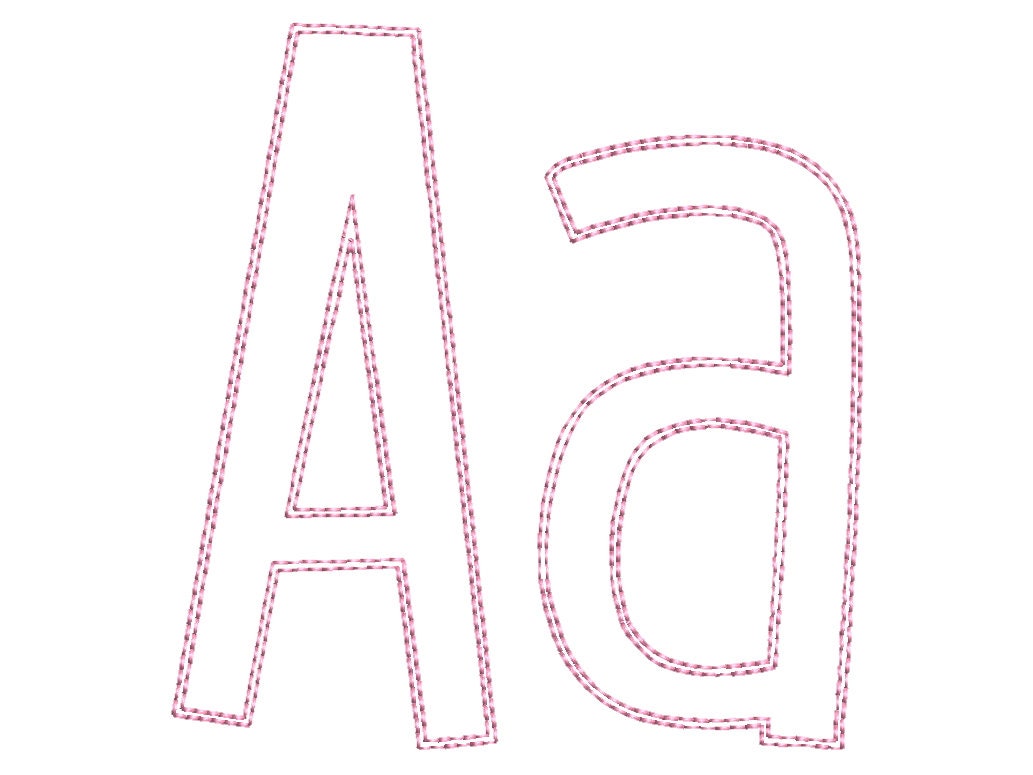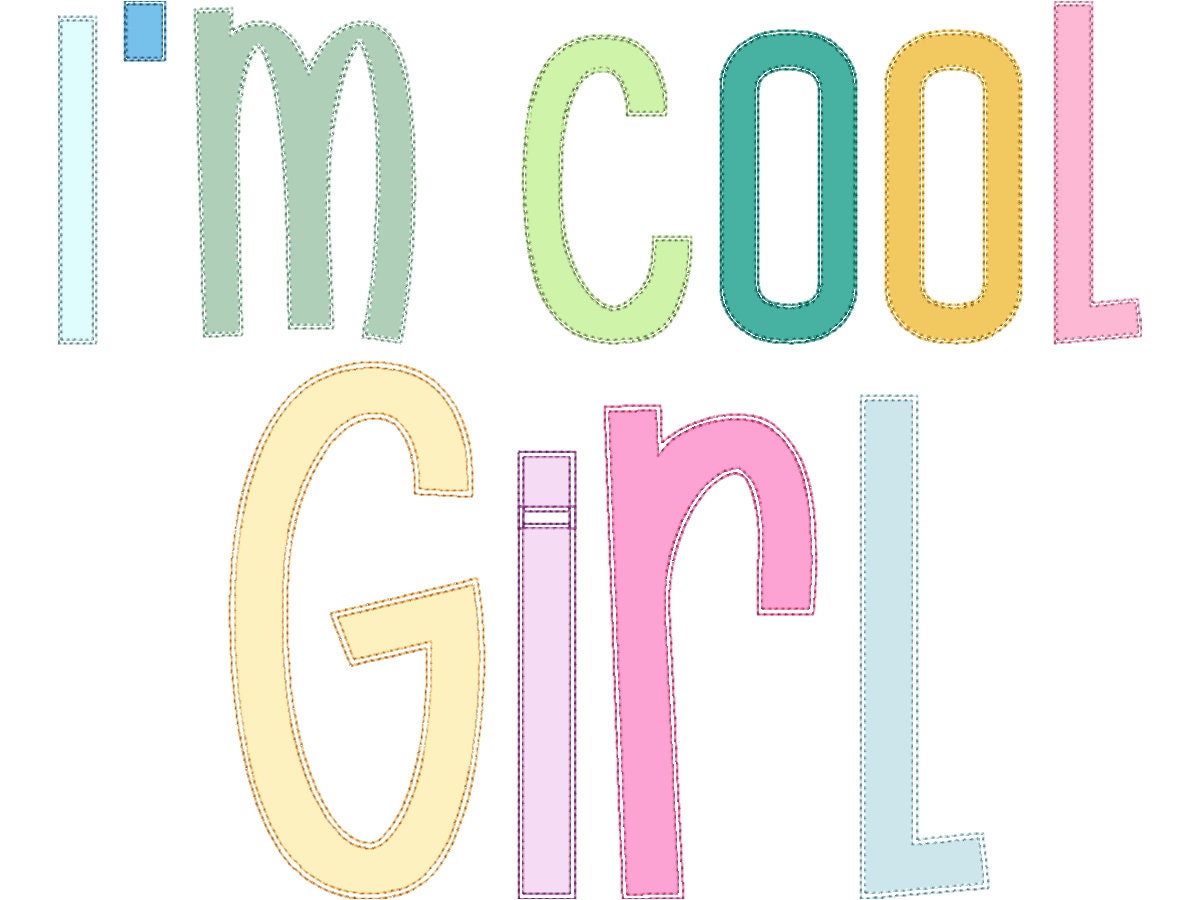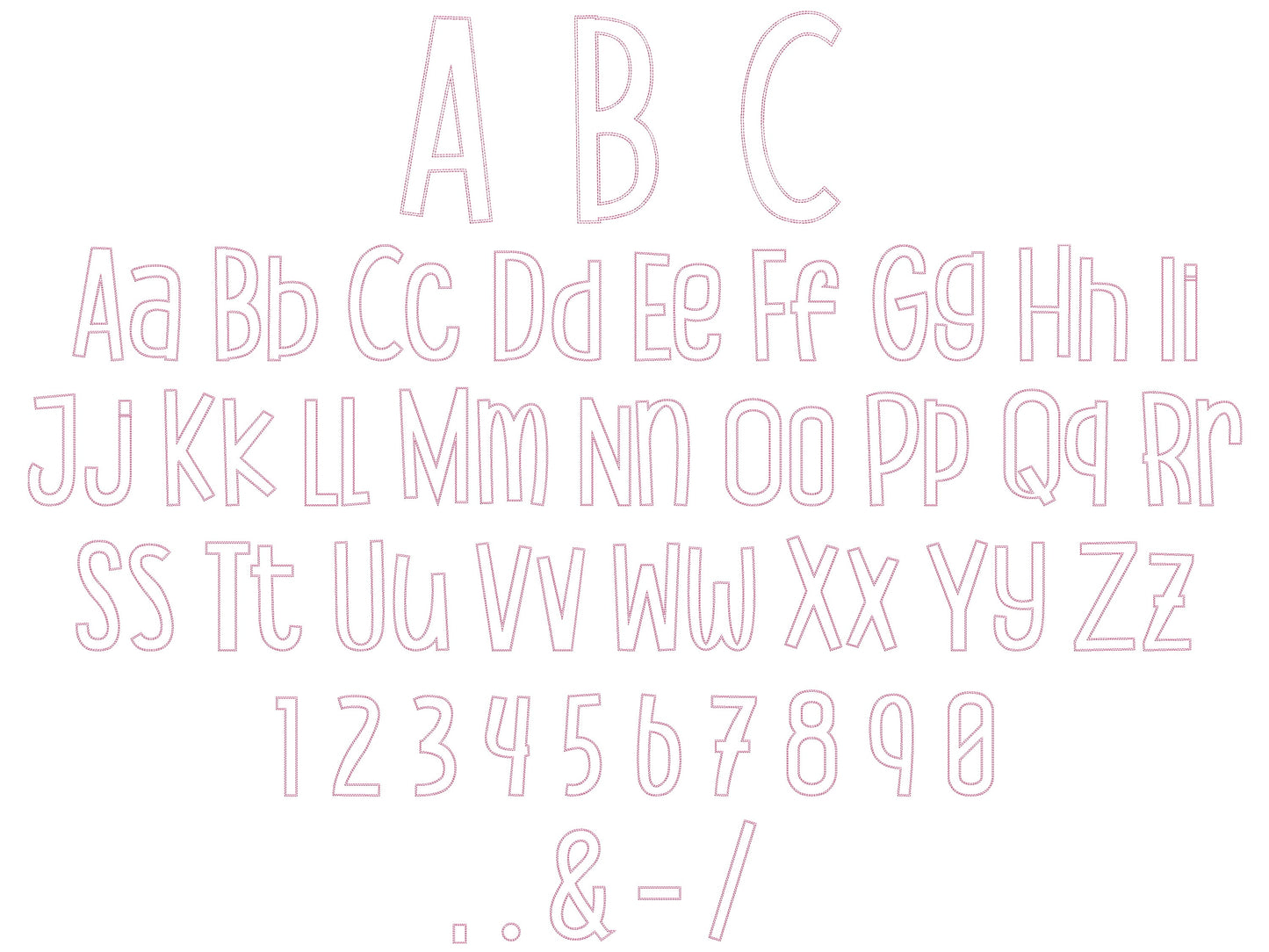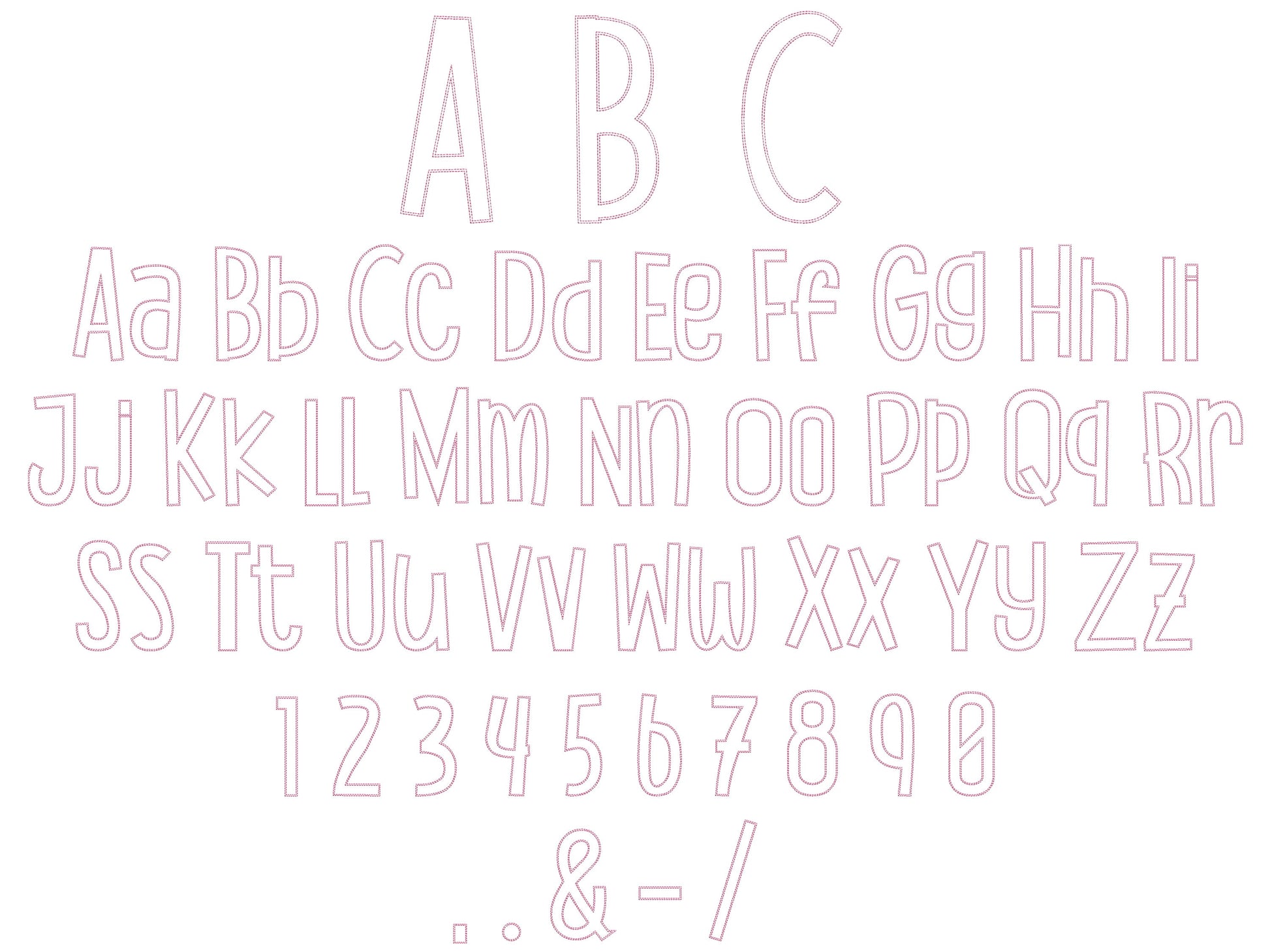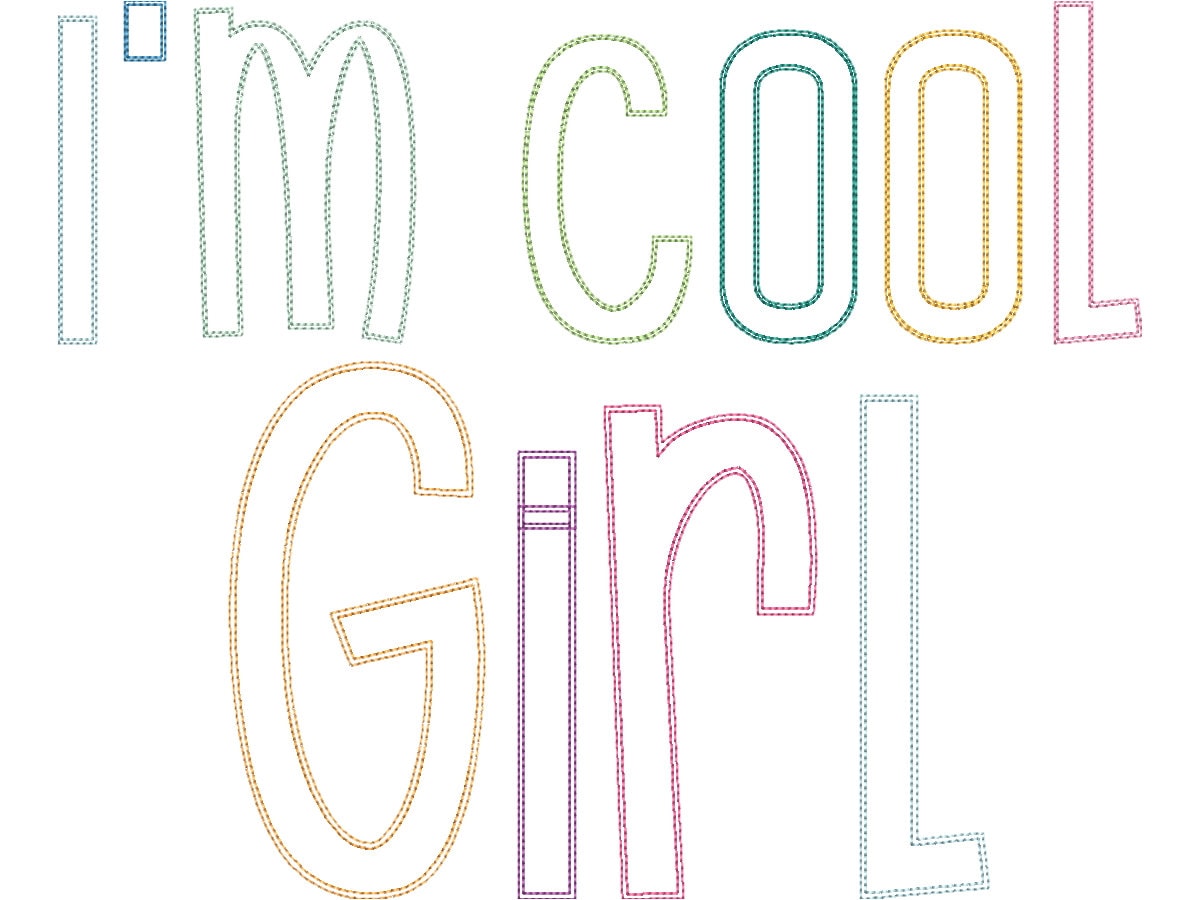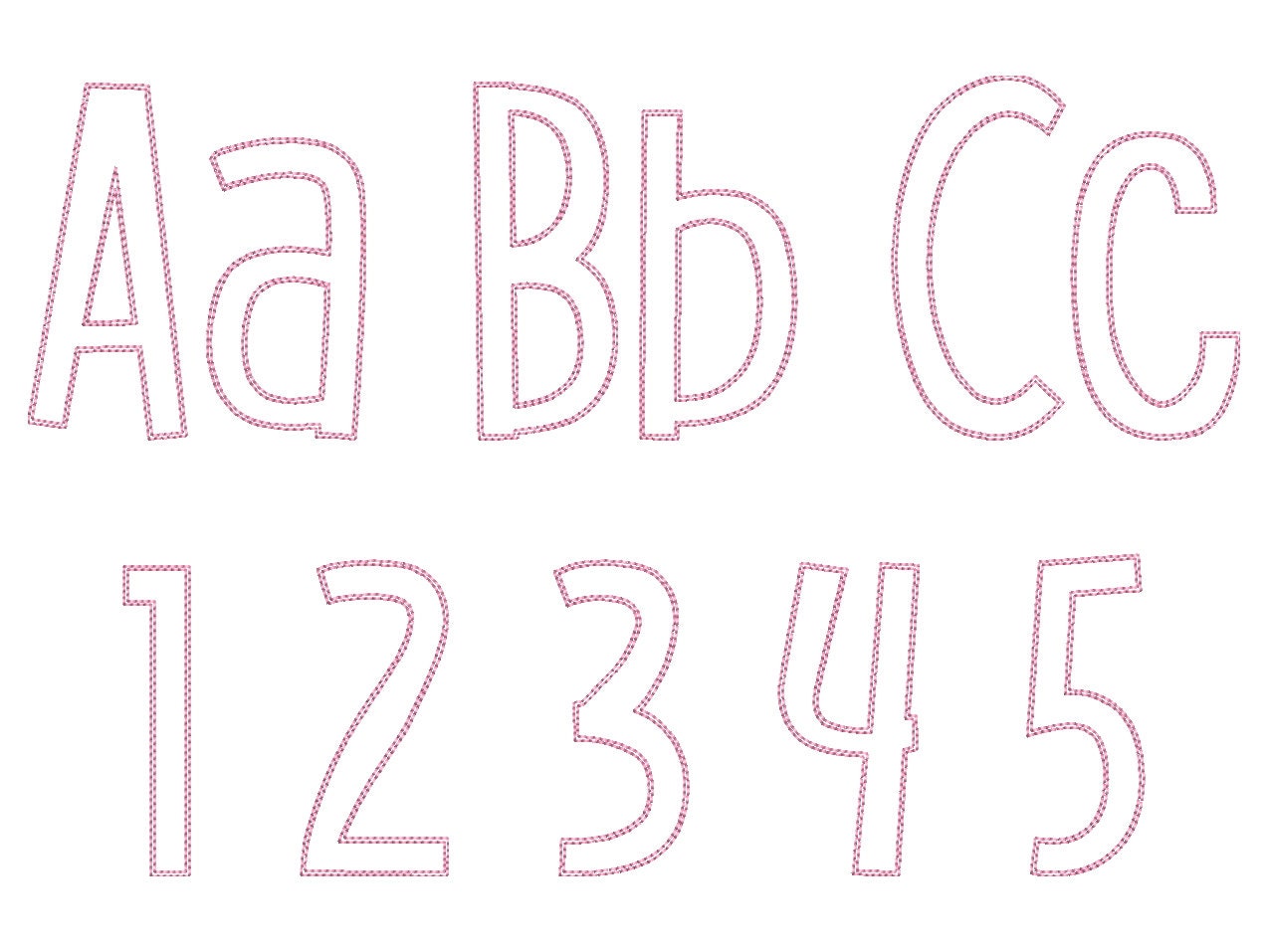
Thin Funny Kids Raggedy Edge Applique Font
Or click to open the linkA thin, funny kids' font in quick outline stitching that also works as raggedy edge applique. Great for names on shirts, bags, pillows and quilts.
Uppercase and lowercase letters, numbers 0 to 9 and punctuation, in five sizes: 2.6, 3.3, 3.7, 4.4 and 5.5 inches. Stitch it as is, or place fabric under it and trim for a raggedy edge.
- Funny kids raggedy edge applique font
- Uppercase and lowercase letters, numbers 0-9, punctuation
- 5 sizes, 2.6 to 5.5 in